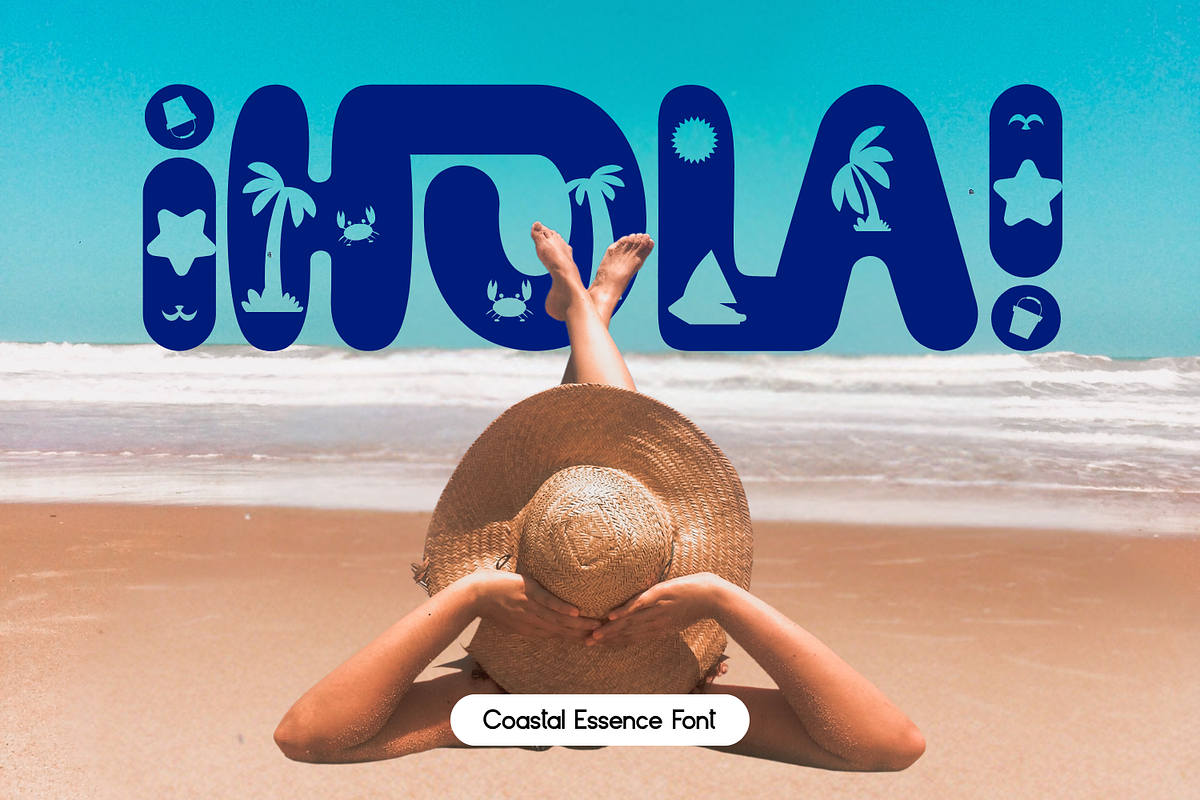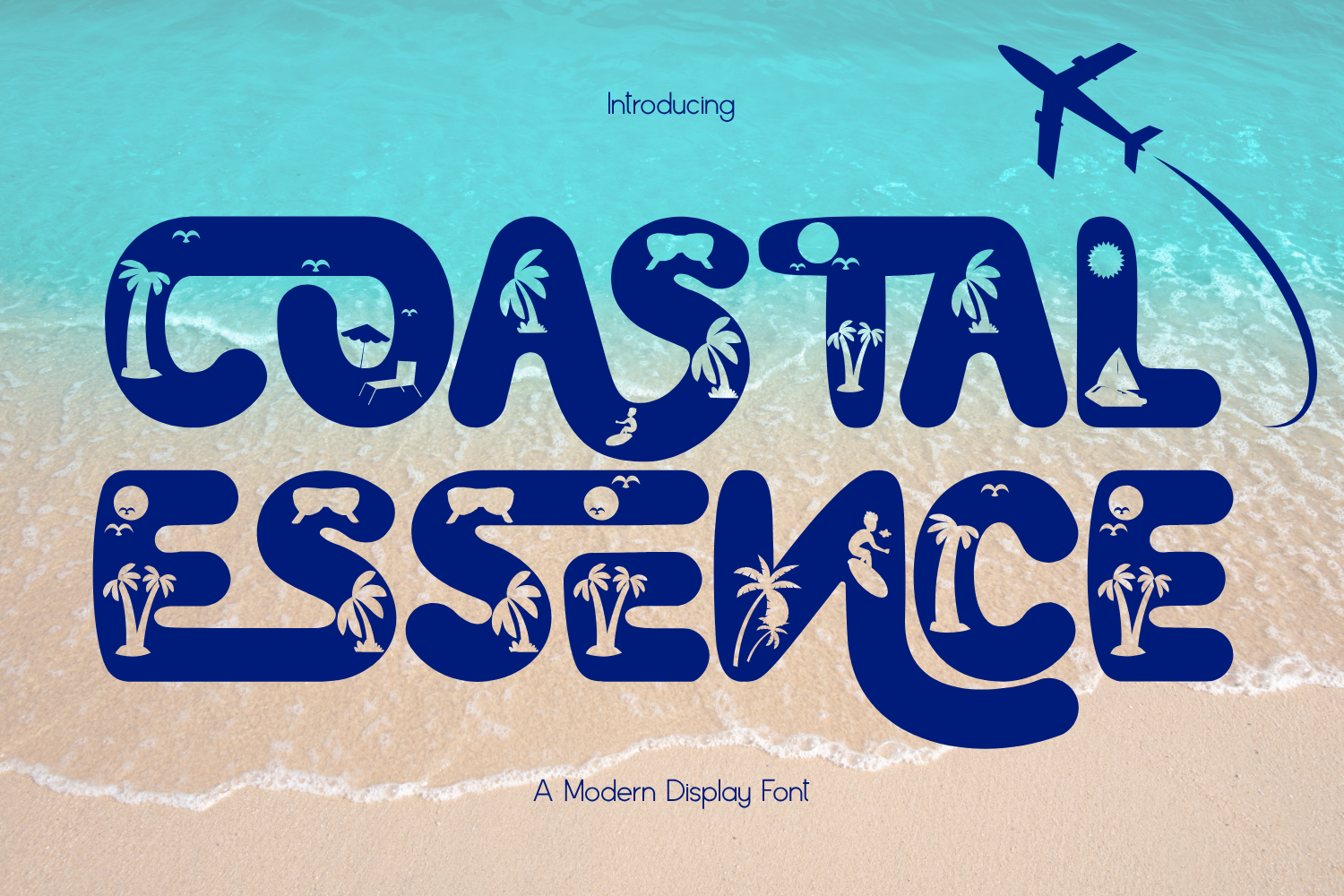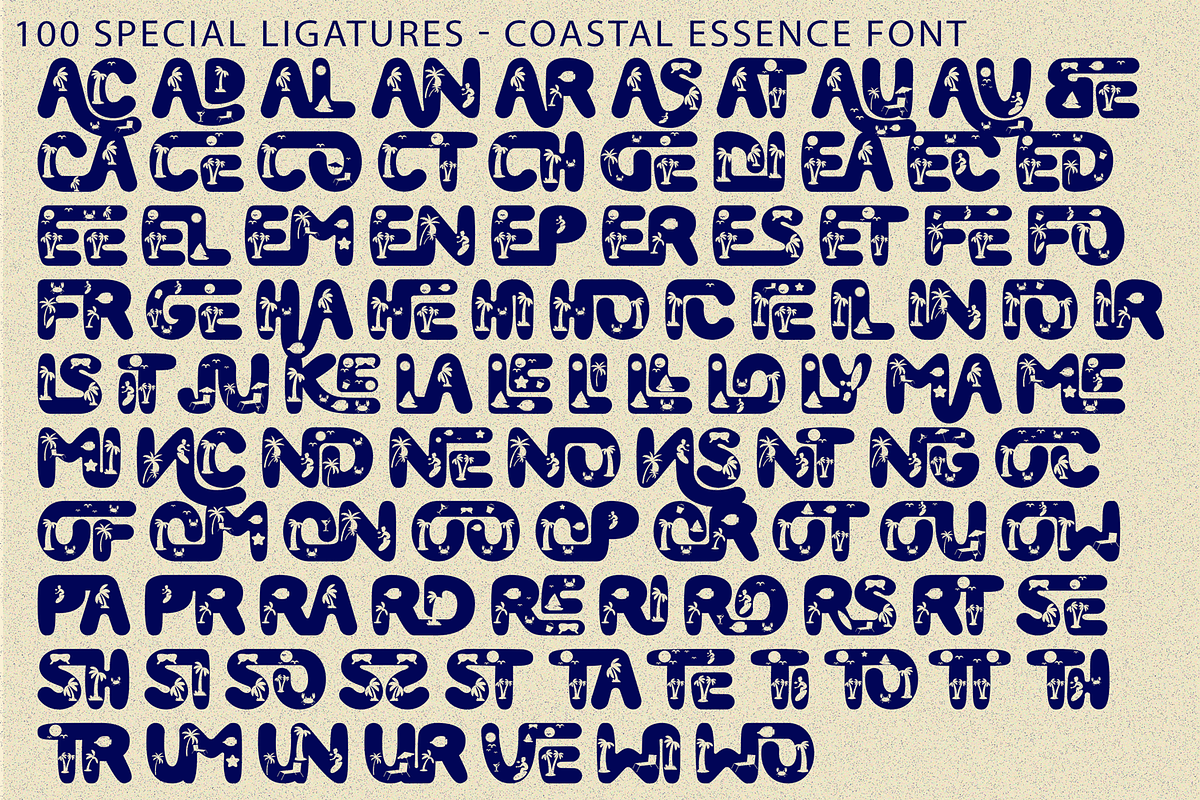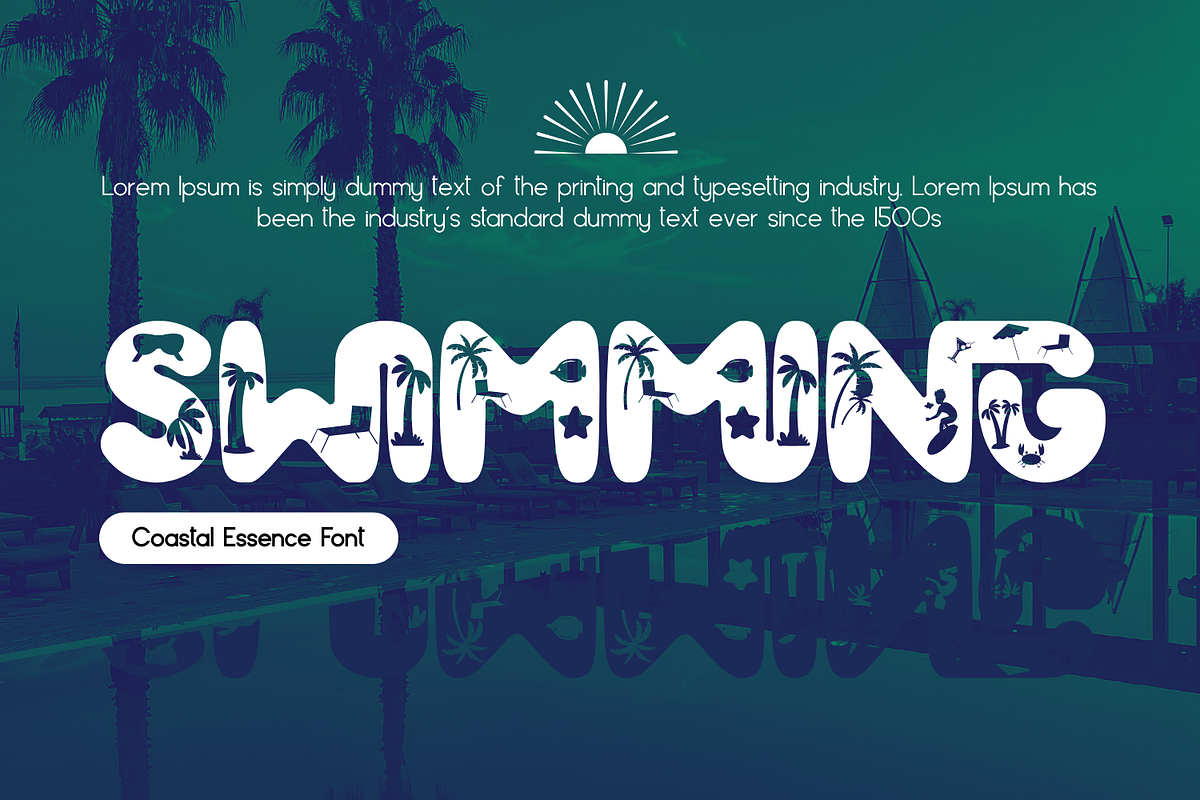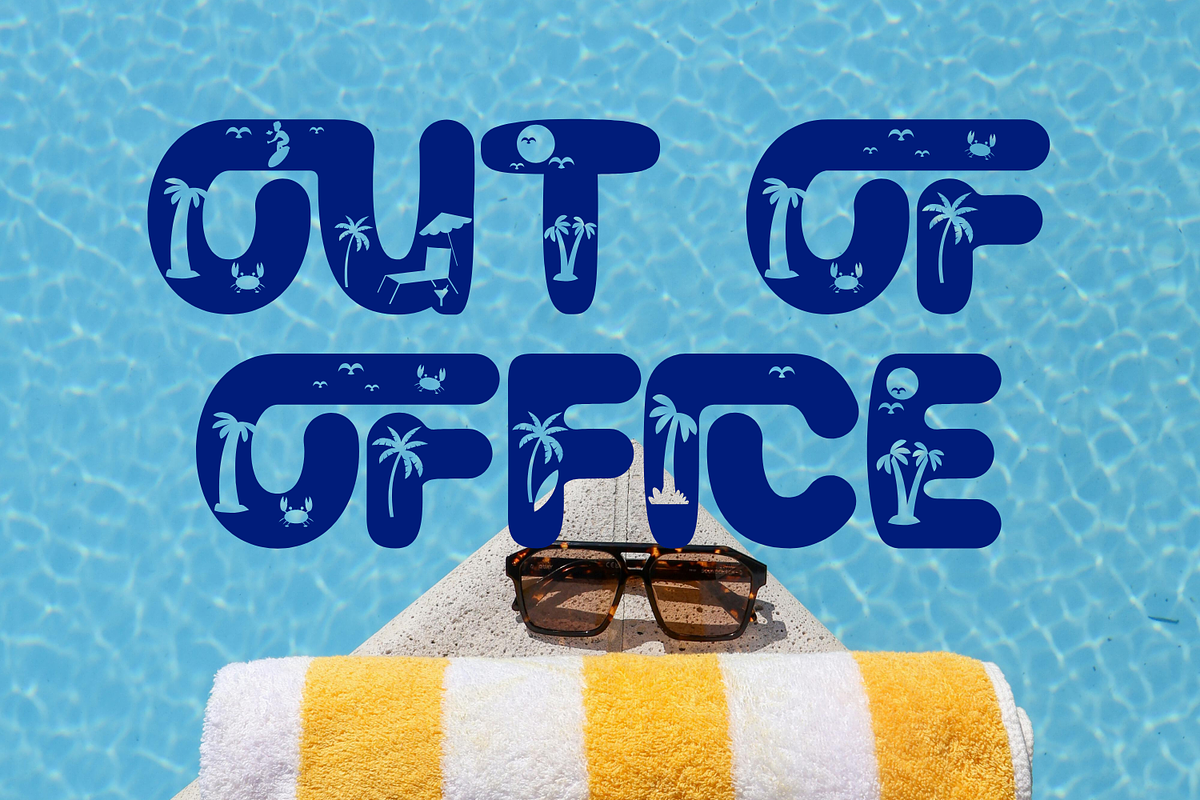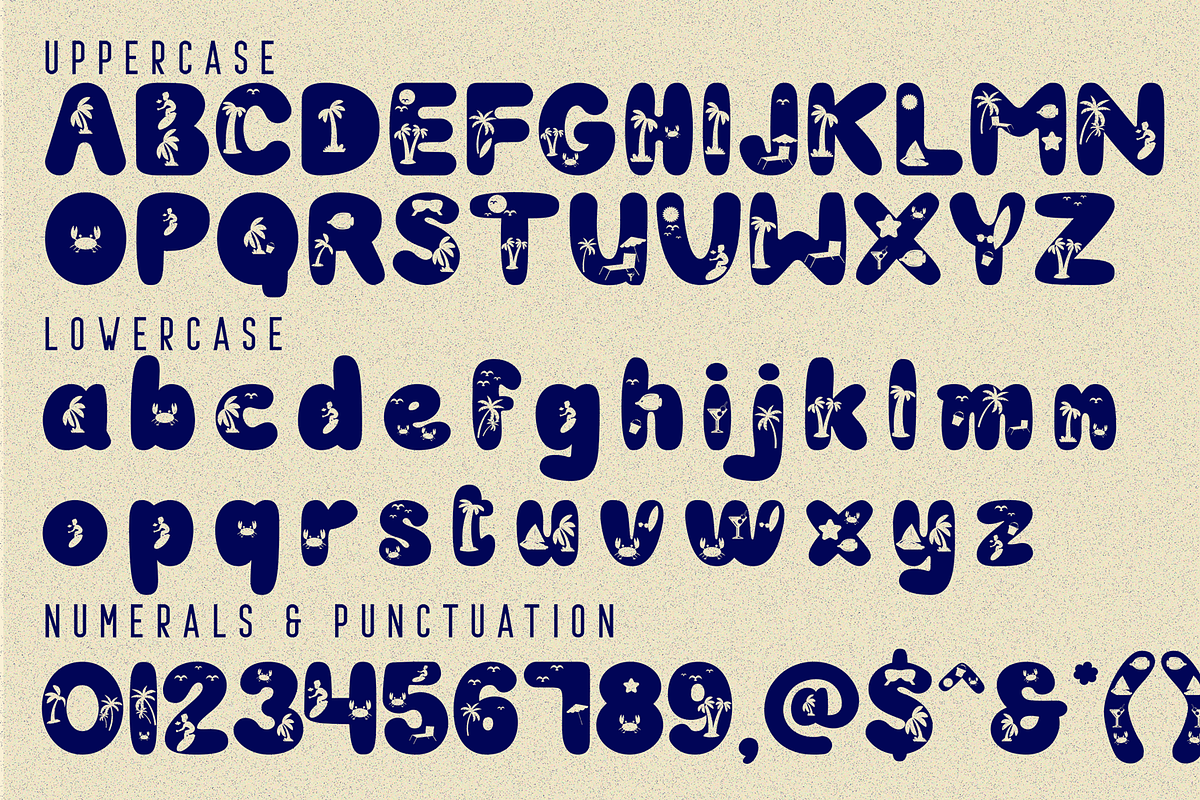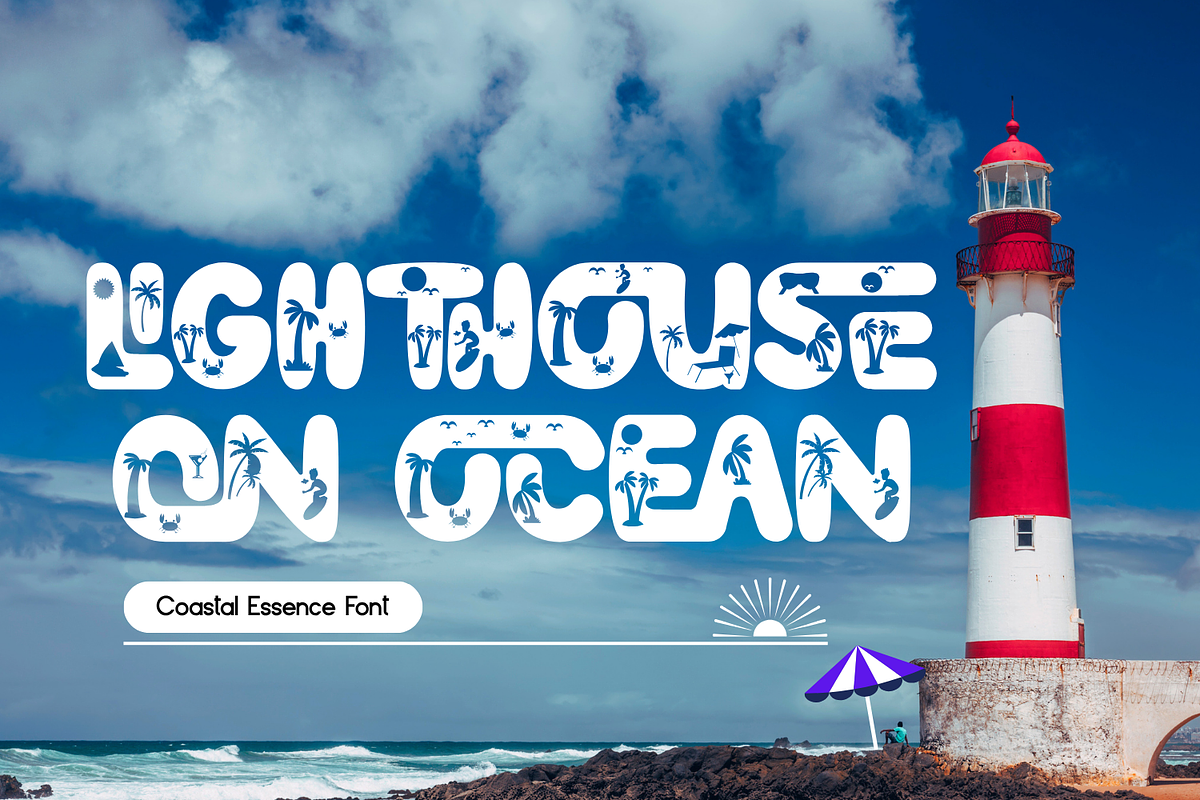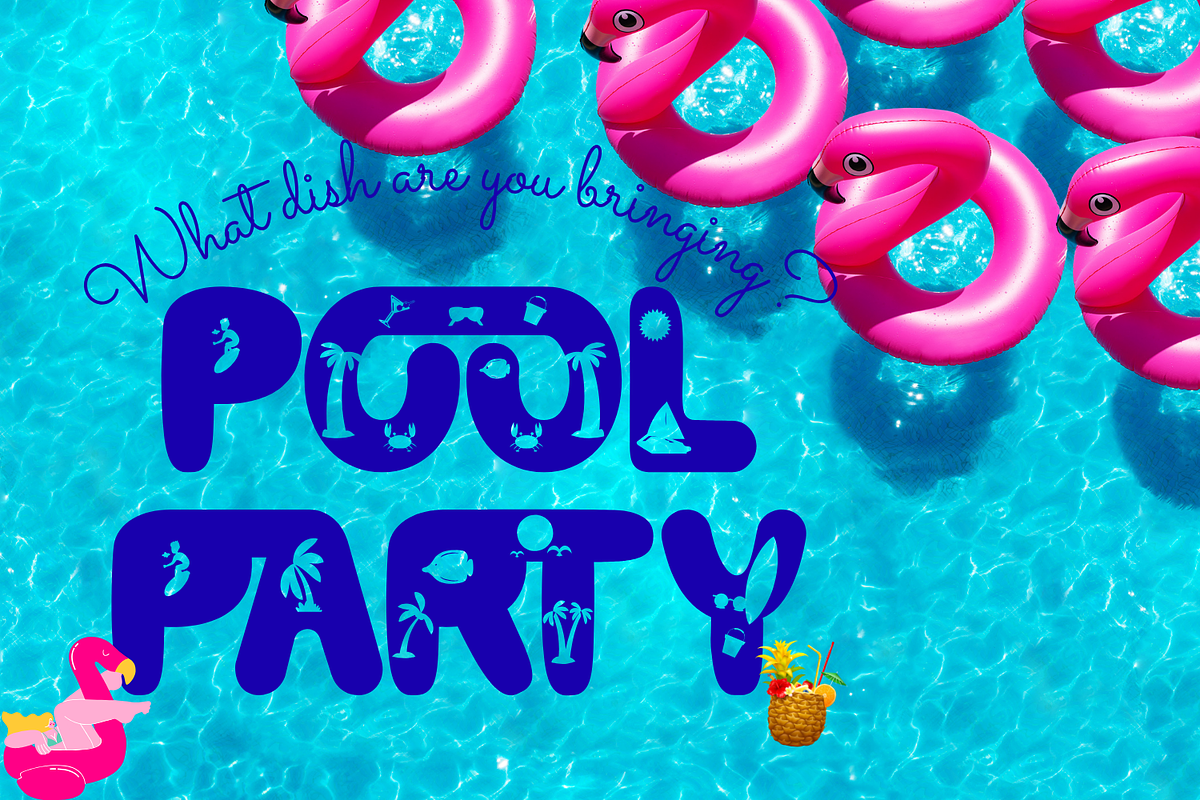
COASTAL ESSENCE - DECORATIVE FONT
COASTAL ESSENCE - DECORATIVE FONT is a playful decorative display font inspired by tropical landscapes and coastal vibes. Featuring bold rounded letterforms combined with beautifully integrated illustrations, this typeface transforms each character into a unique visual experience. With detailed in-letter graphics such as palm trees, waves, and beach elements, COASTAL ESSENCE brings a lively and thematic touch to your designs. Its fun and friendly style makes it perfect for summer branding, travel posters, packaging, kids’ designs, and creative headlines.
🔤Features:
- Uppercase & Lowercase Letters
- Around 100 Special Ligatures & Alternates
- Accented Characters for multilingual support
🔤About 100 ligatures combined with Stylistic Alternates Font:
AC AD AL AN AR AS AT AU AV BE CA CE CH CO CT DE DI EA EC ED EE EL EM EN EP ER ES ET FE FO FR GE HA HE HI HO IE IC IL IN IO IR IS IT JU KE LA LE LI LL LO LY MA ME MI NC ND NE NG NO NT NS OC OF OM ON OO OP OR OT OU OW PA PR RA RD RE RI RO RS RT SE SH SI SO SS ST TA TE TH TI TO TR TT UM UN UR VE WI WO